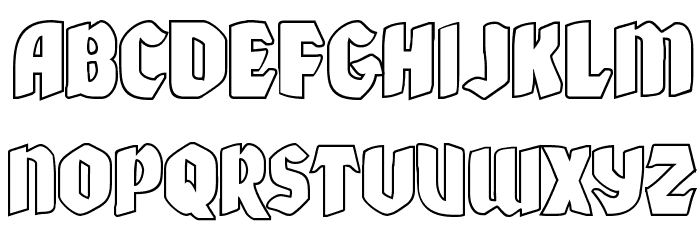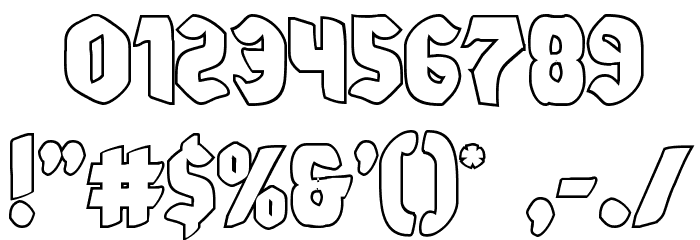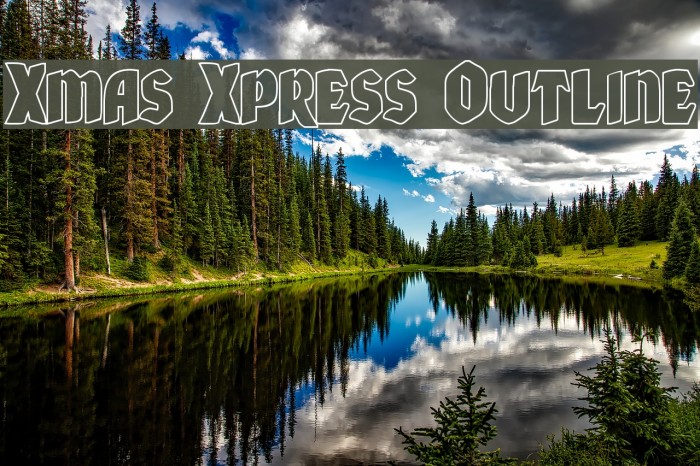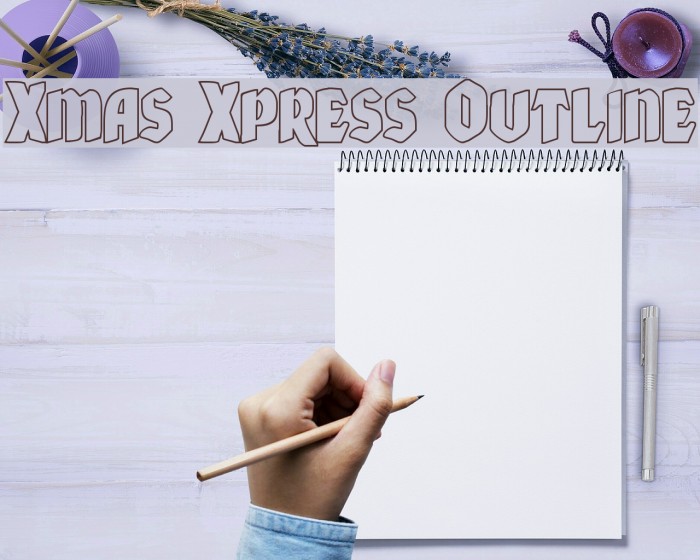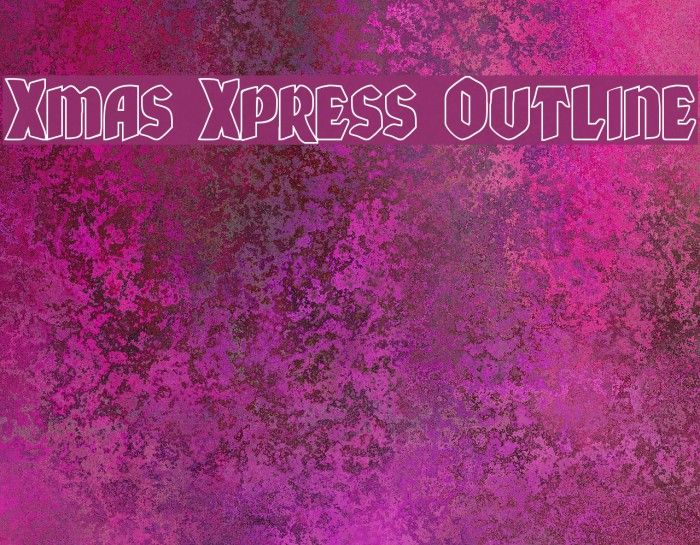
Xmas Xpress Outline Font
This font features a bold, playful outline style that captures attention with its thick, uniform strokes. Each character is designed with a consistent outline that gives it a three-dimensional appearance, making it ideal for festive and cheerful designs. The uppercase and lowercase letters maintain a uniform height, contributing to a cohesive look. The numbers and special characters are crafted with the same attention to detail, ensuring versatility across various applications. The font's design is reminiscent of holiday themes, making it perfect for seasonal projects. Its boldness and unique style make it stand out, while the outlined nature adds a touch of whimsy and fun.
A bold, playful outline font perfect for festive and cheerful designs.
- Font: Xmas Xpress Outline
- Proposed Projects: Ideal for holiday cards, festive posters, children's book covers, and playful branding.
- Overall Style: Playful, Festive
- Use Case: Headlines, Posters, Branding